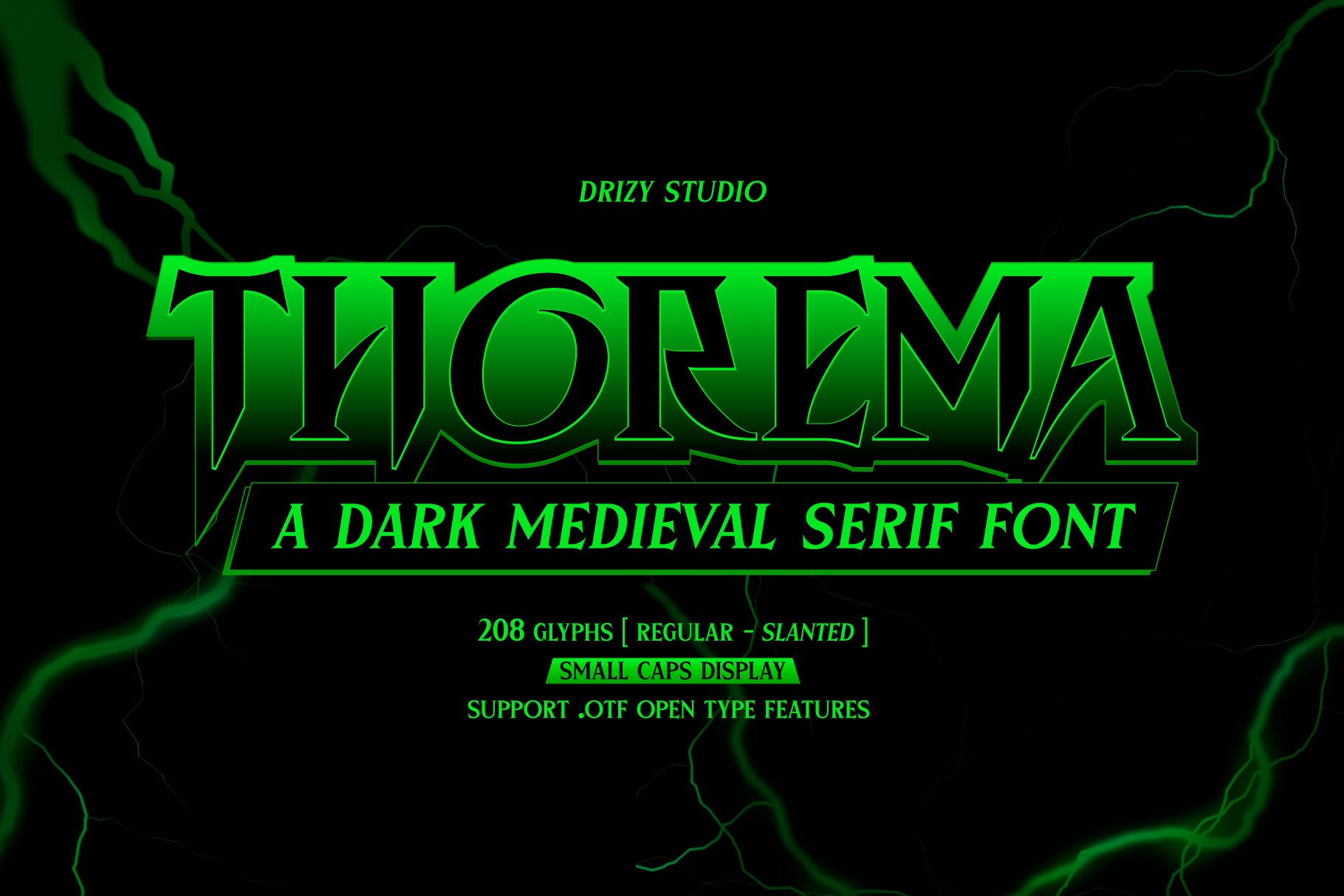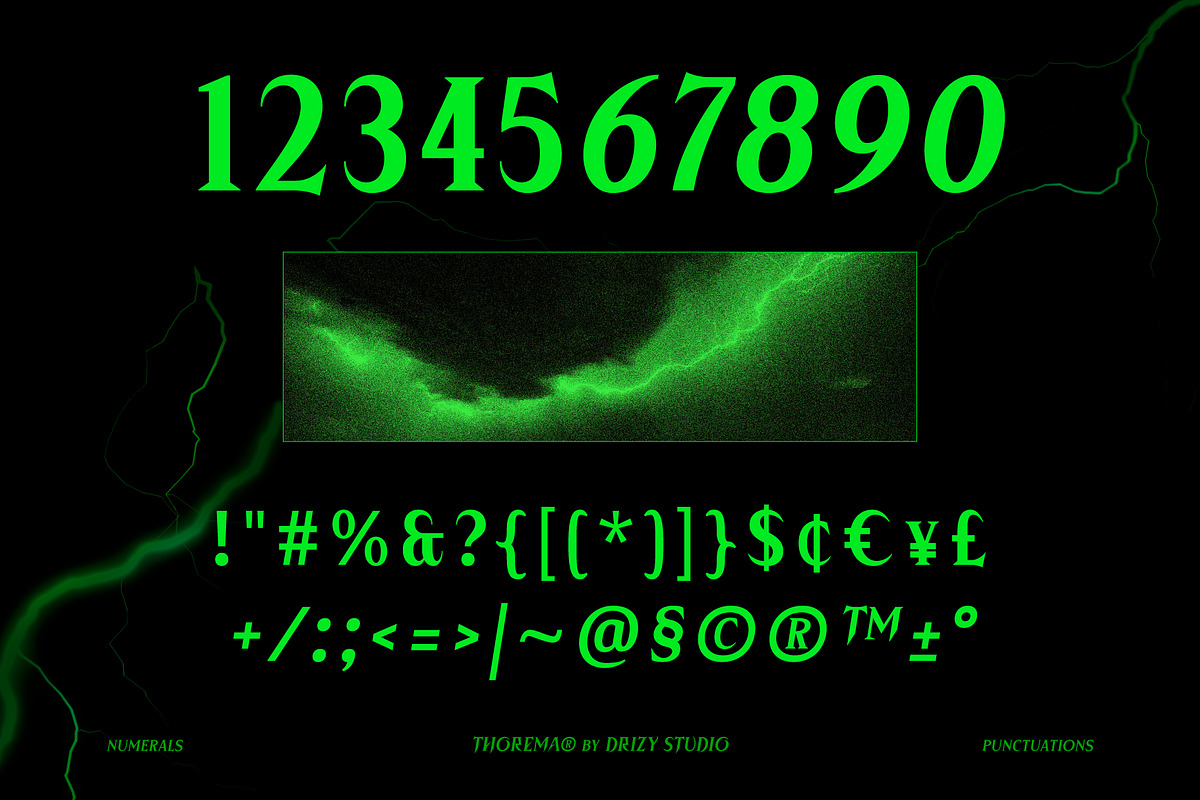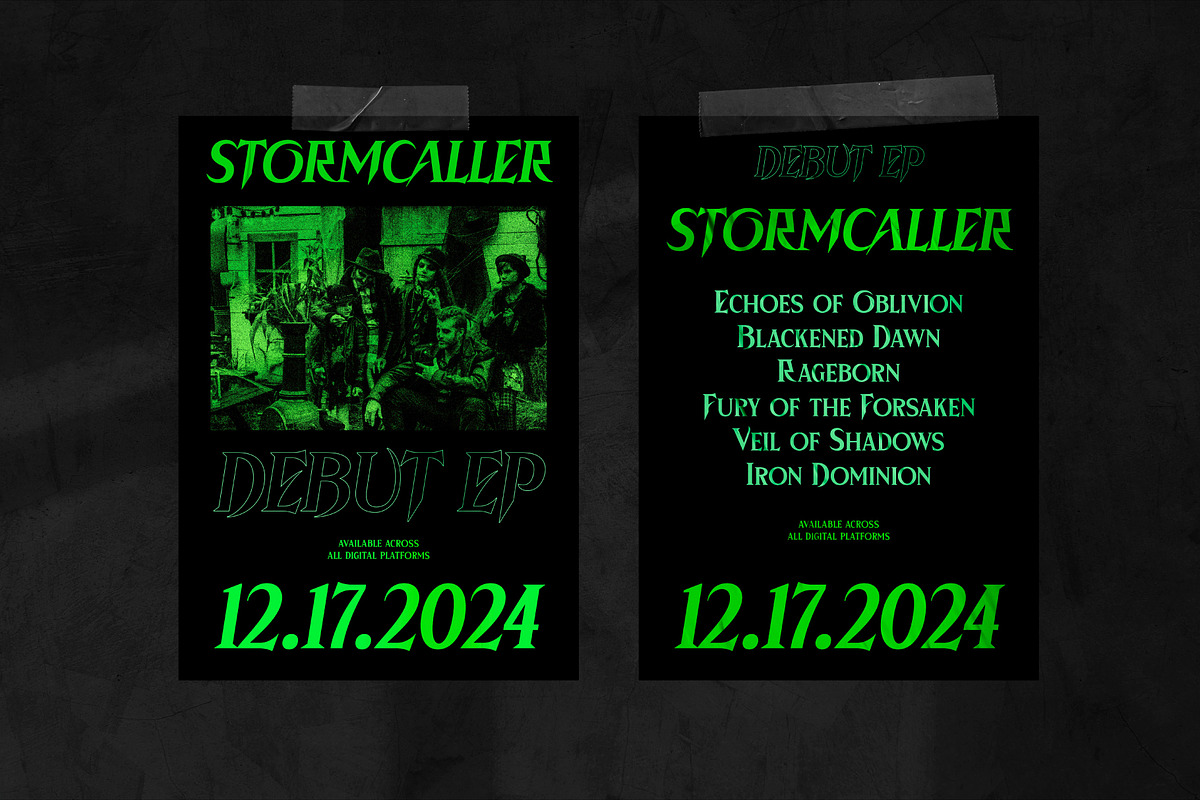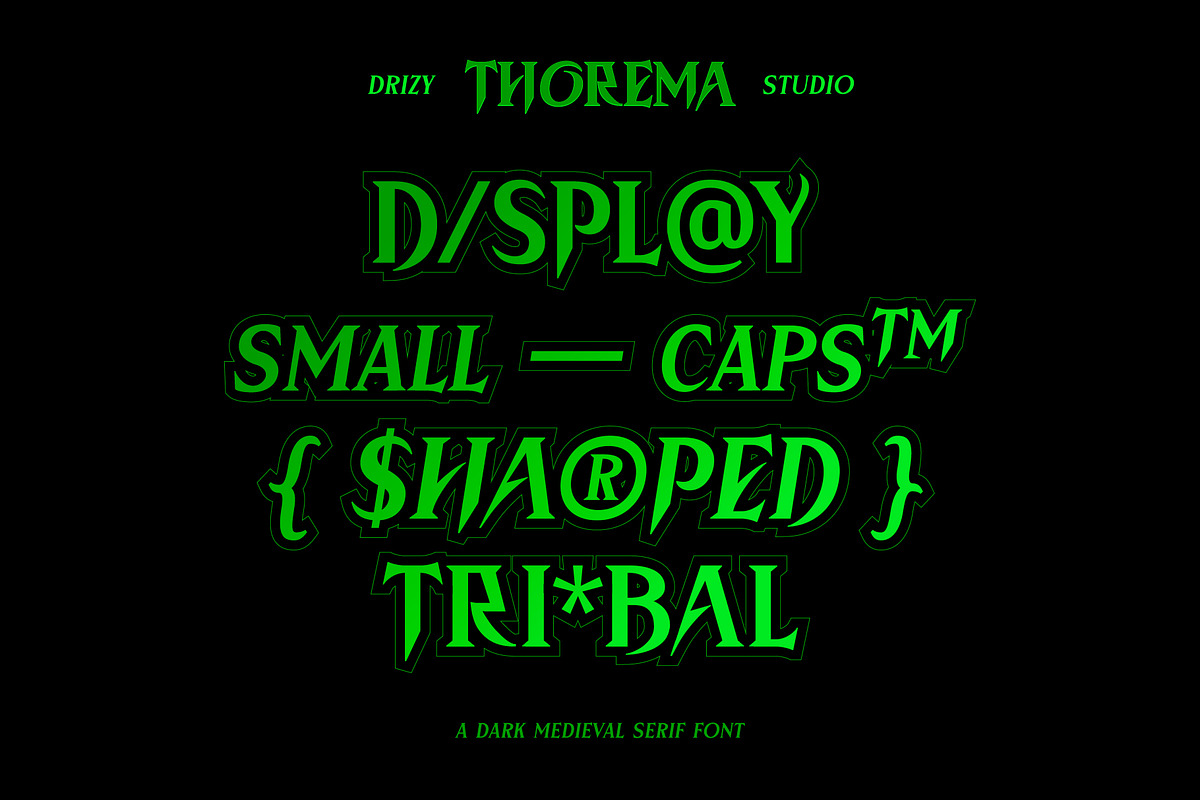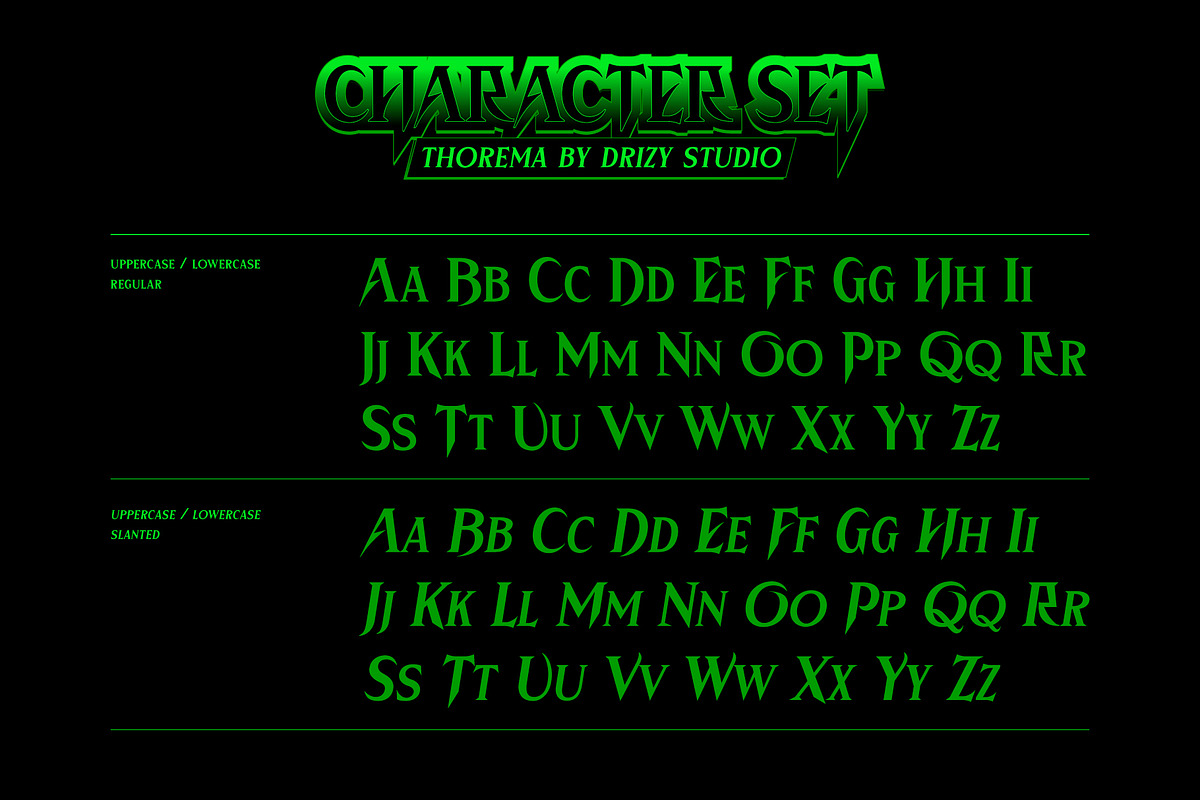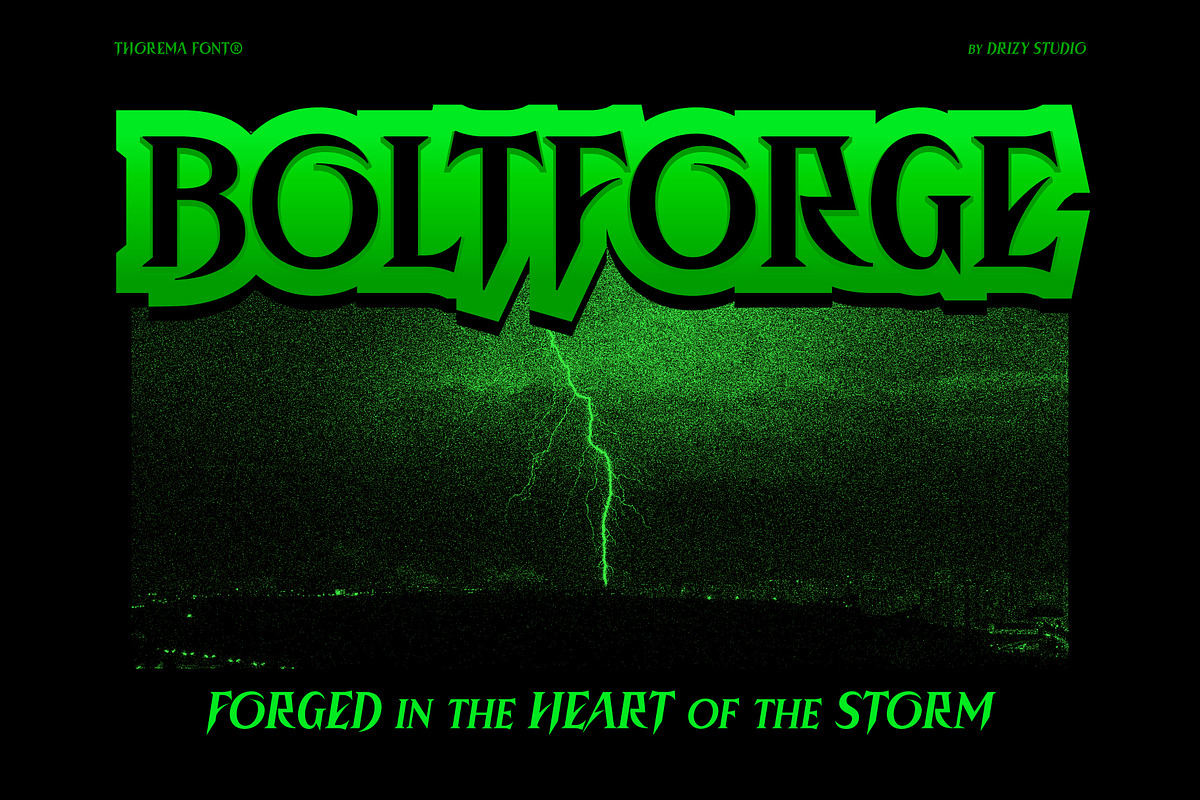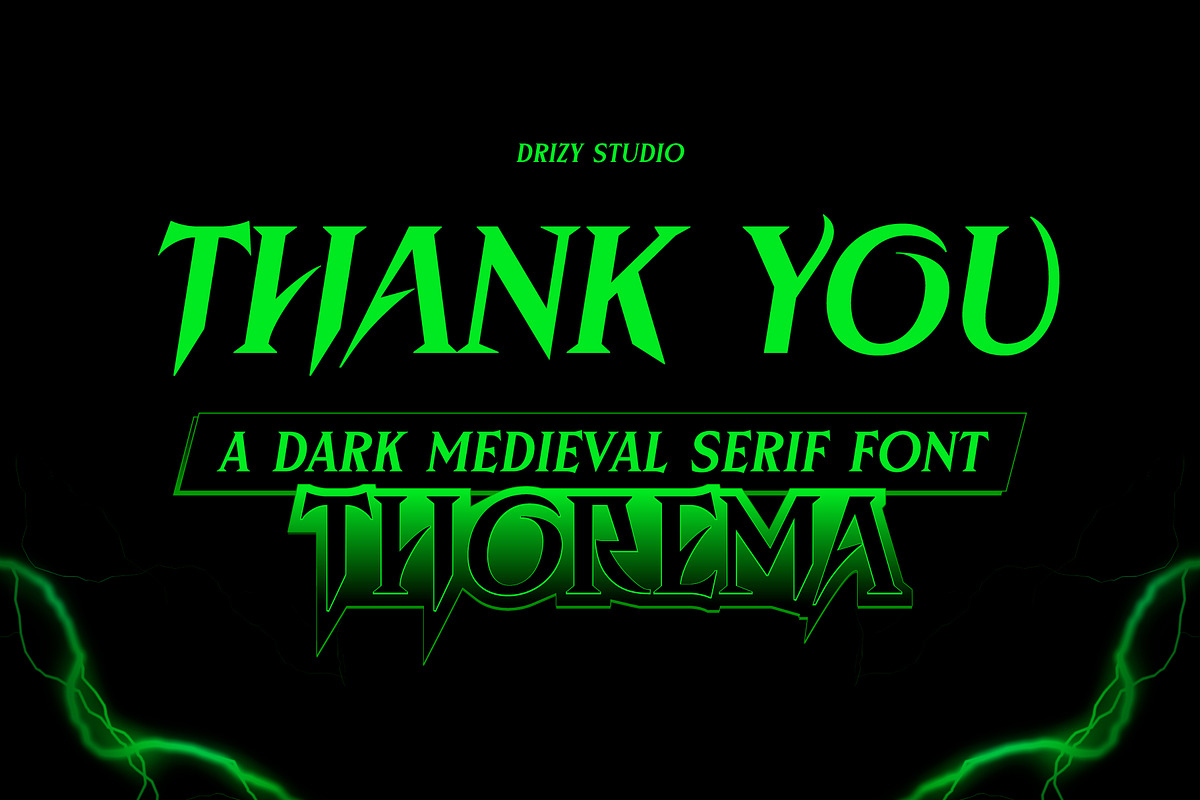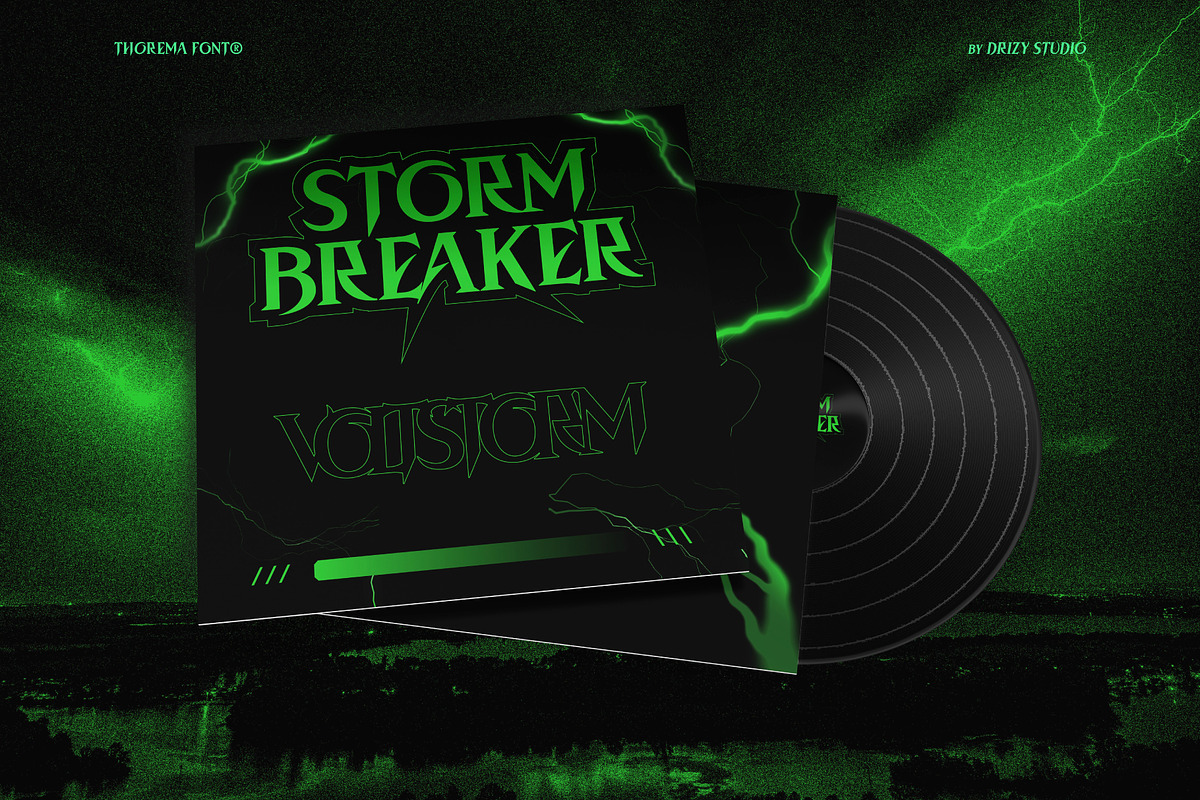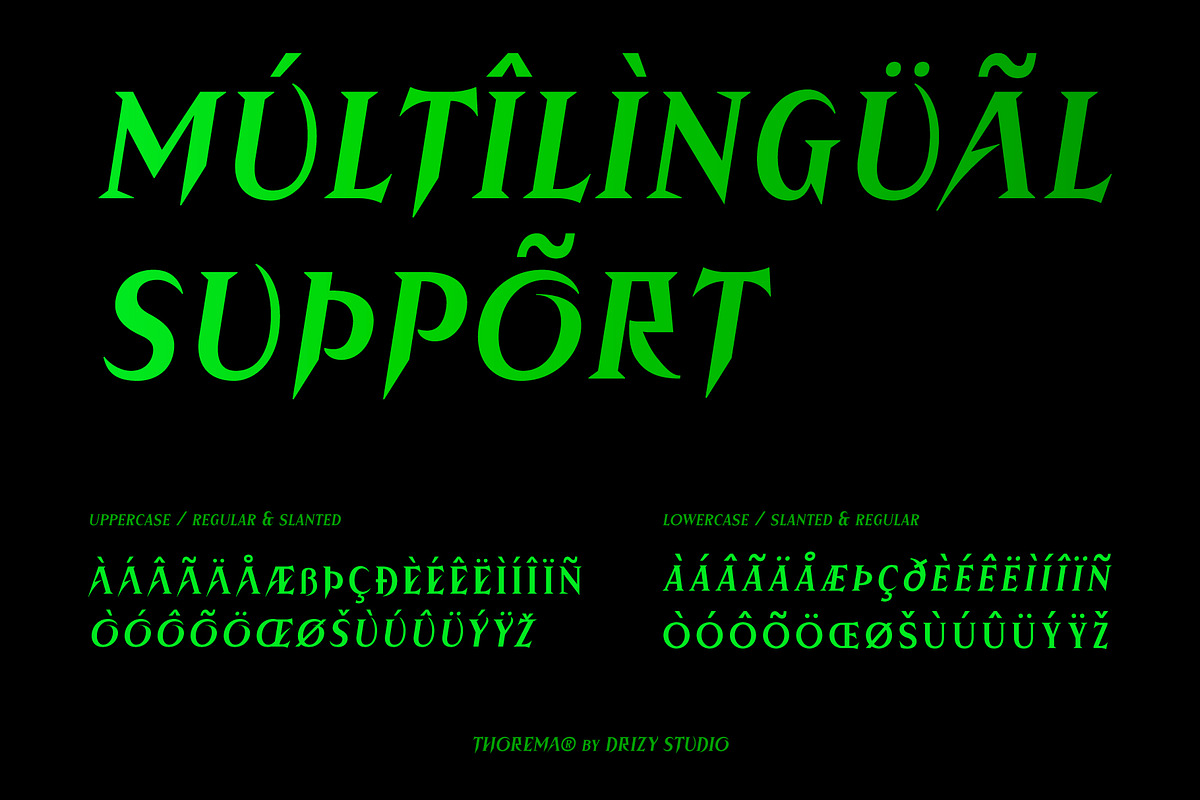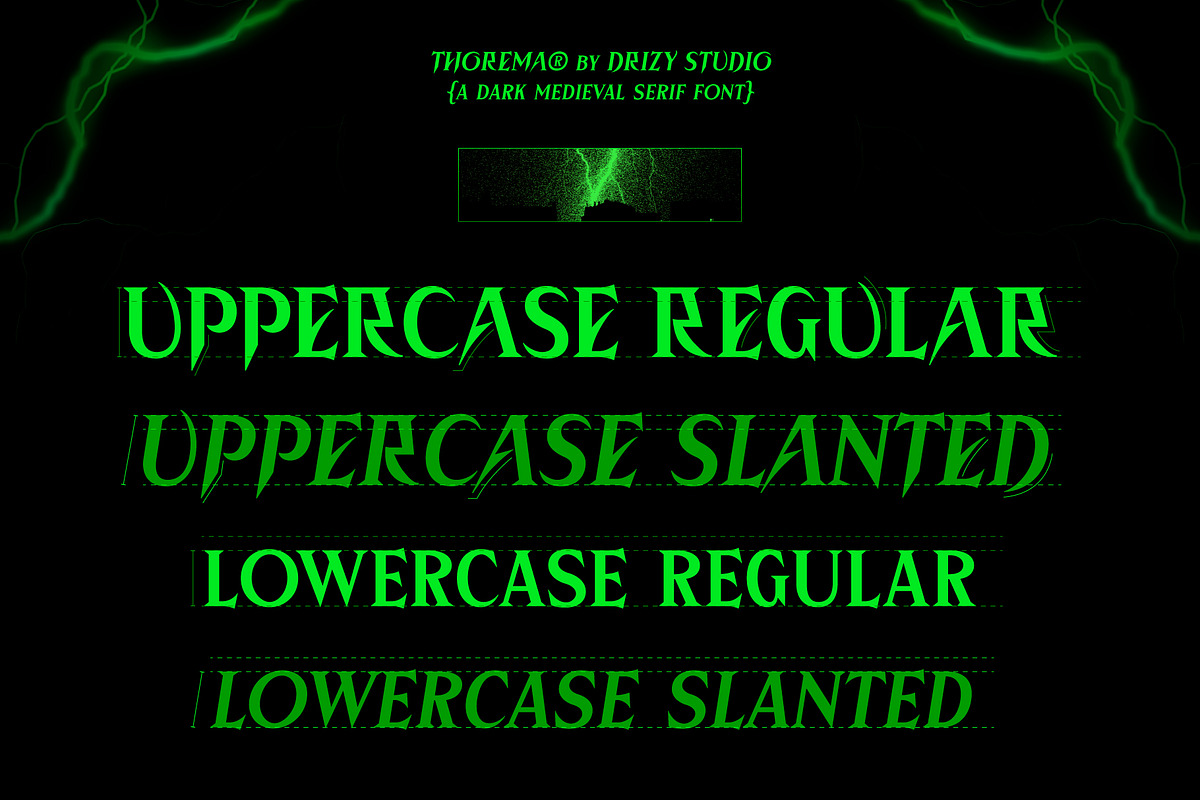
Thorema - Dark Medieval Serif Font
Thorema is a bold and captivating font that bridges the elegance of medieval serifs with the edgy allure of Dark Futuristic design. Perfectly suited for the music industry, Thorema evokes a sense of drama and mystery, making it ideal for album covers, band logos, and promotional materials that demand attention. With it's sharp details and intricate curves, this font conveys both power and sophistication, fitting seamlessly into dark, futuristic aesthetics. Whether you're creating visuals for gothic metal bands or experimental electronic projects, Thorema will elevate your designs with its unique, timeless character.
Thorema features:
- Character Set (Uppercase & Lowercase)
- Punctuation & Numbers
Elevate and explore the design possibilities with this Dark Futuristic Font!